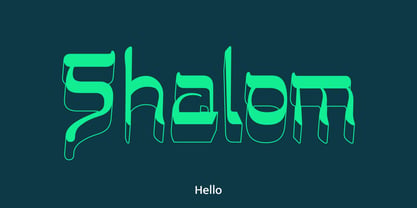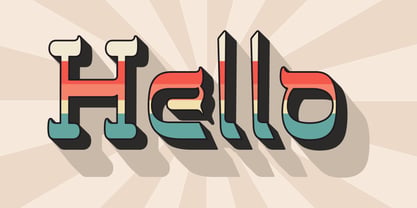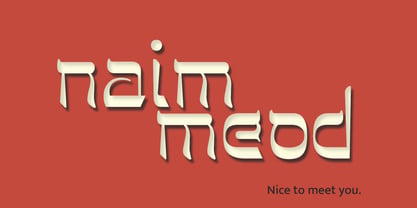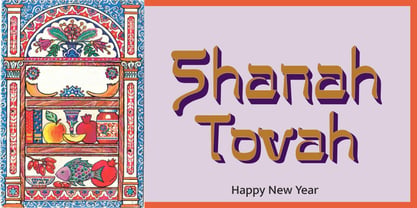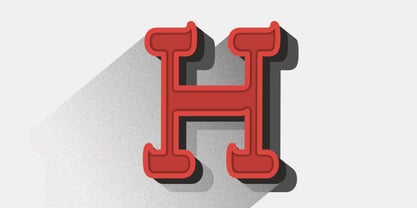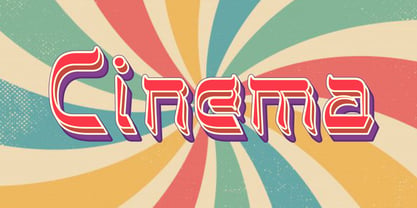
ST Hebrew
by Supriya Tembe
The ST Hebrew Font Family was designed by Supriya Tembe and published by Supriya Tembe. ST Hebrew contains 1 styles. More about this family
This typeface is a stylized Latin alphabet with distinct visual influence from traditional Hebrew script. It merges the structural clarity of Latin letters with the ornamental and angular features typical of Hebrew lettering.
• Stylistic Origin: Inspired by traditional Hebrew letterforms, adapted for Latin alphabets.
• Letter Shapes: The letters in this font have sharp, angled strokes and bold corners that are inspired by Hebrew writing. Many characters feature small hooks and unique end shapes that add style and movement. These details give the font a strong, eye-catching look while keeping each letter clear and easy to read. The uppercase letters are especially bold and decorative, while the lowercase ones are simpler but still match the overall design.
• Case Design: Both uppercase and lowercase letters are included. The lowercase letters look similar in style to the uppercase ones but are smaller and simpler, making them easier to read while still matching the overall design.
• Numbers and Symbols: The numbers have the same sharp, geometric style as the letters, so everything looks consistent. Punctuation and symbols are also designed to match the font’s bold, angular look.
• Decorative Yet Legible: Despite its exotic flair, the font retains high legibility for display use.
• Mixed Line Weights: Subtle variation in stroke thickness adds a hand-crafted feel.
• Overall Tone: Modern yet ancient, both digital and calligraphic, striking a balance between the past and the future.
Notable Characters:
Letters like S, W, and Y have strong diagonal shapes and decorative touches. Characters like G, R, and Q include unique bars or tails, adding to the font’s unusual and eye-catching style.
Use Case:
Perfect for branding, titles, headlines , posters, or cultural-themed designs requiring a Middle Eastern or Judaic visual identity while staying within the Latin alphabet system and design work that blends tradition with modernity.